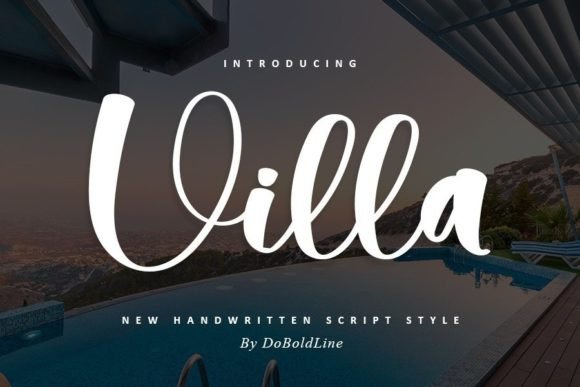
Indulge in the allure of Villa Font, a captivating script that exudes timeless elegance and modern flair. Crafted by the ingenious minds at DoBold.Line, this masterpiece is meticulously designed to elevate your creations to new heights.
With its intricate curves and graceful strokes, Villa Font evokes the beauty of classic calligraphy, rejuvenated with a contemporary touch. Its balanced structure and diverse character set empower you to craft captivating designs that resonate with your audience.
Immerse yourself in the versatility of Villa Font. Whether you seek to enhance the allure of your packaging design, craft captivating social media graphics, or infuse your branding with a touch of sophistication, this font is your ultimate ally. Its ability to effortlessly adapt to a myriad of styles and mediums makes it the perfect choice for any discerning designer.
Unleash your creativity and let Villa Font guide you towards design excellence. Its intuitive flow and effortless elegance will inspire you to create masterpieces that captivate and leave a lasting impression. Embrace the transformative power of Villa Font today and elevate your designs to extraordinary heights.